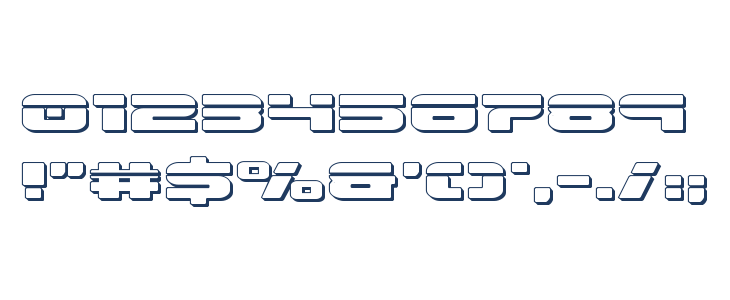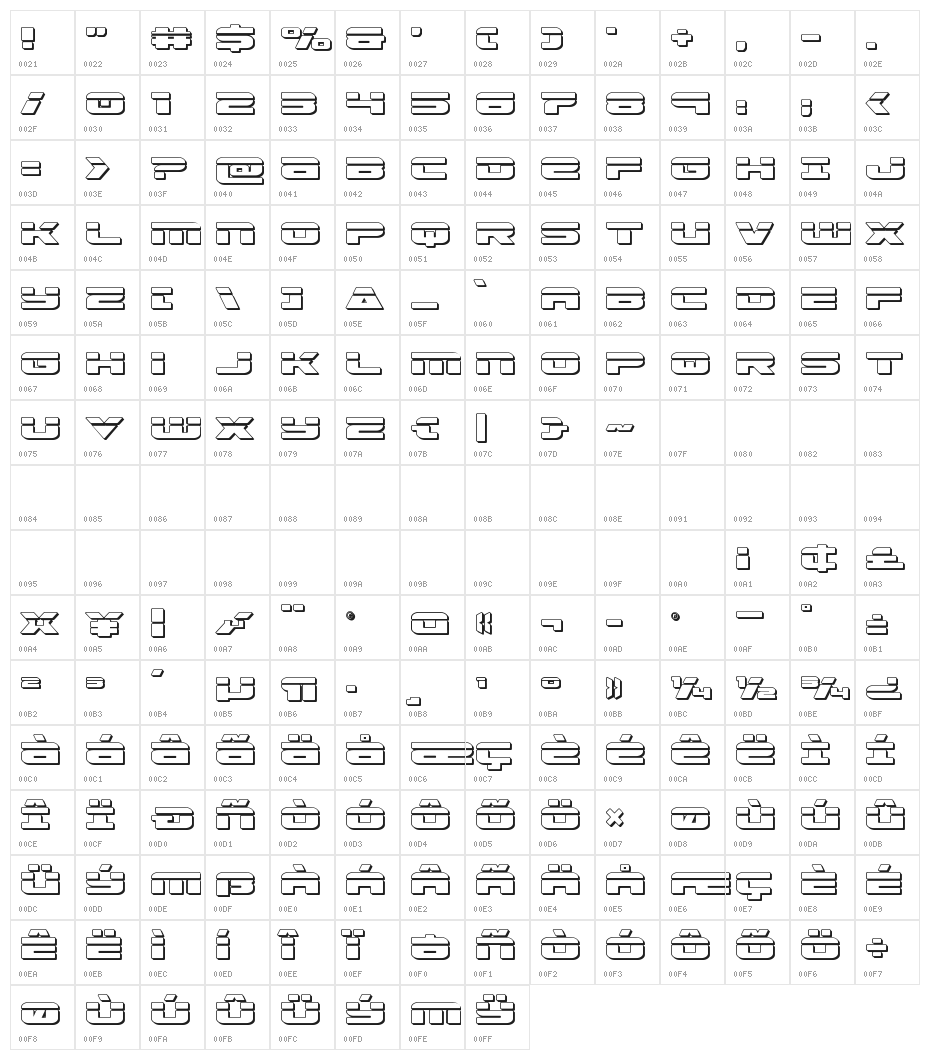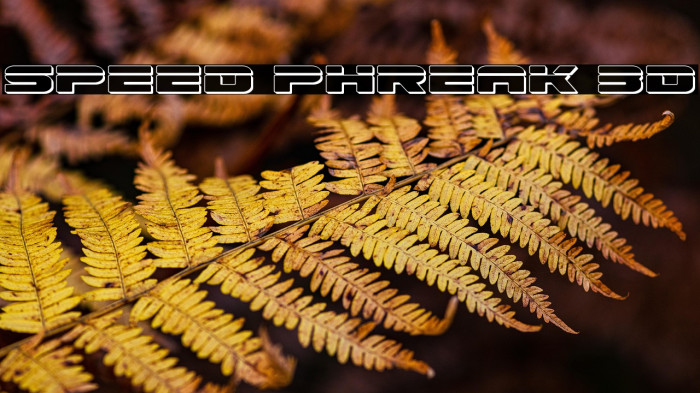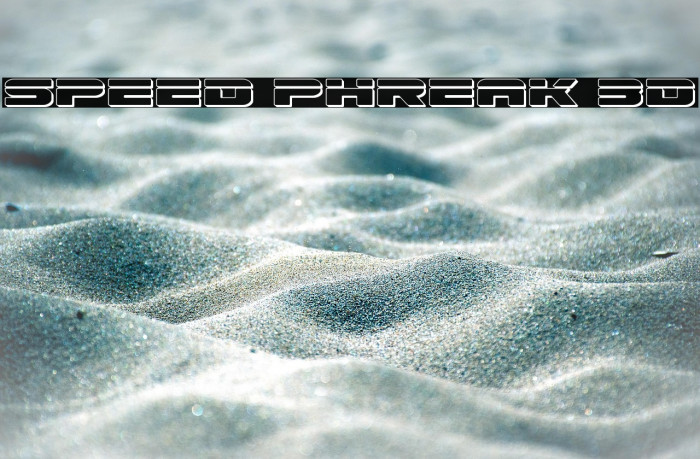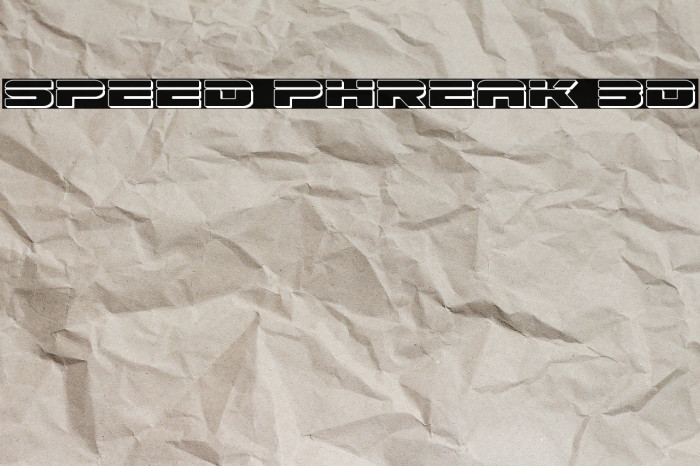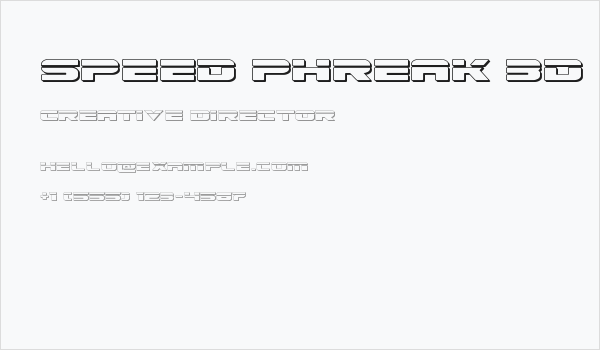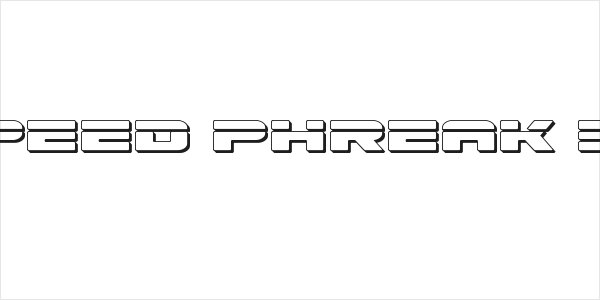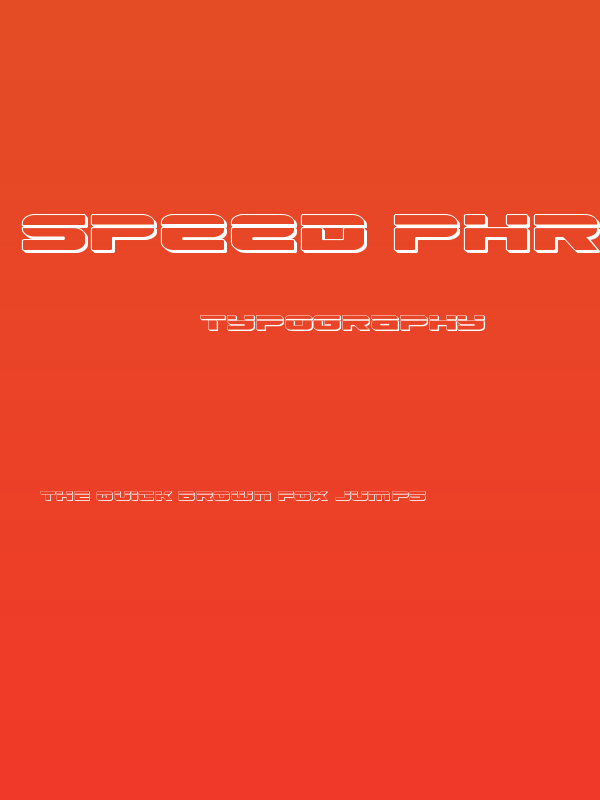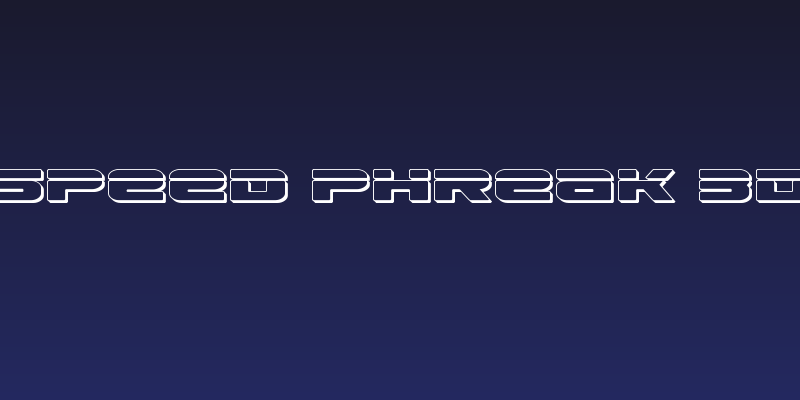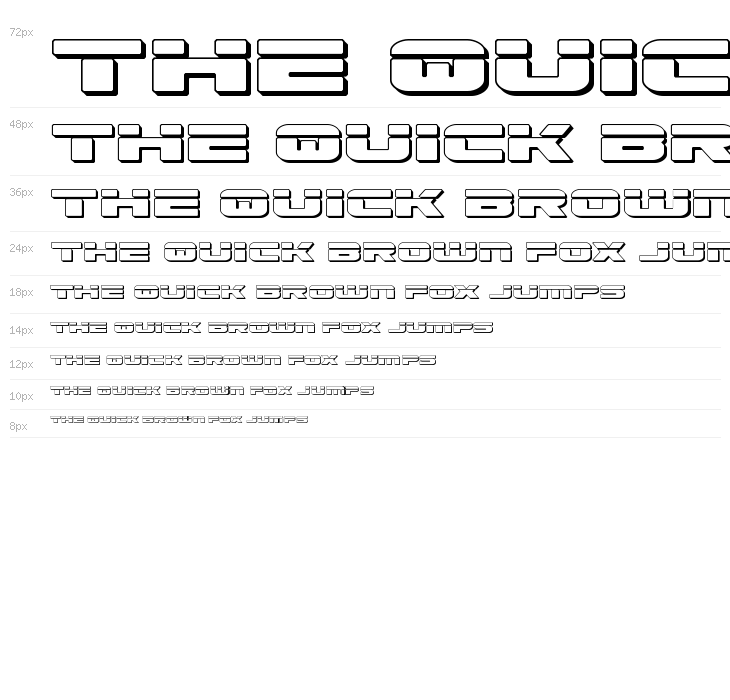
Speed Phreak 3D Font
Speed Phreak 3D Description
This font features a bold, futuristic design with a three-dimensional effect, characterized by its blocky and geometric letterforms. The characters have a distinct outline that gives them a layered appearance, enhancing the 3D illusion. The font's structure is uniform, with consistent line thickness and angular edges, creating a modern and tech-inspired aesthetic. The uppercase and lowercase letters maintain a cohesive style, while the numerals and special characters complement the overall design. This font is ideal for projects that require a strong, impactful visual presence.